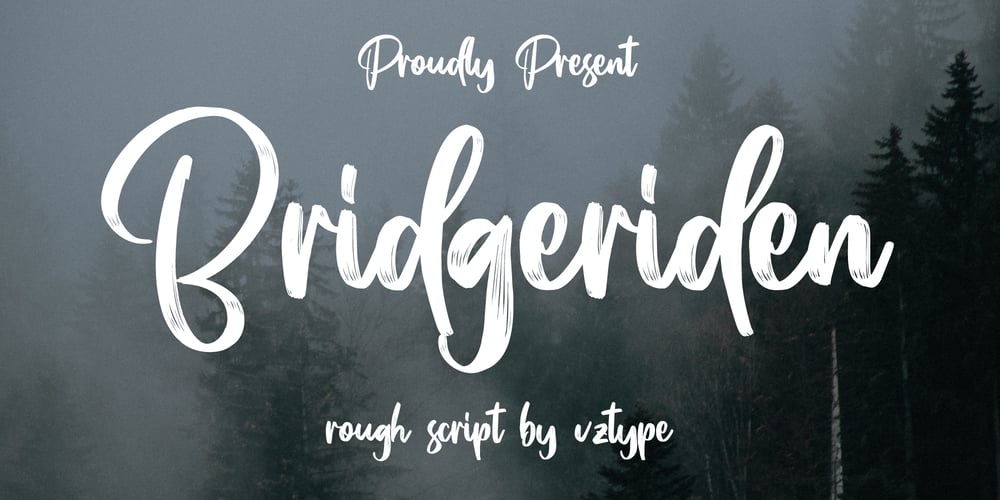
Bridgeriden Font Family was designed by Randi Ilhamsyah and published by VzType. Bridgeriden contains 1 styles and family package options. Thanks for checking out Bridgeriden is perfect for all your needs, such as a logo, printed quotes, badge, insignia, packaging, headline, poster, t-shirt/apparel, greeting card, and wedding invitation, & etc.